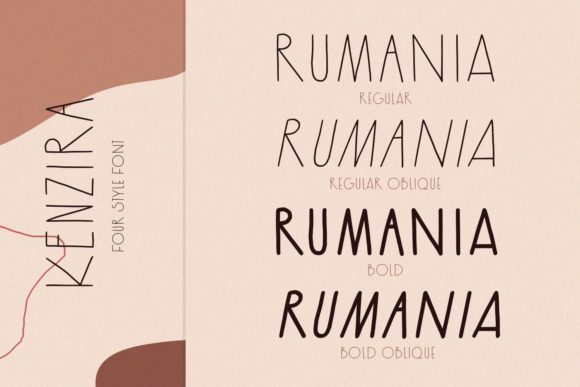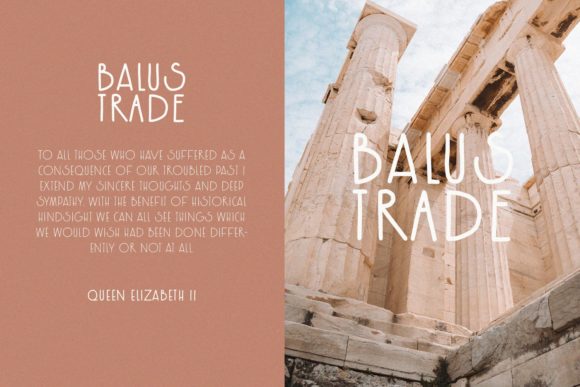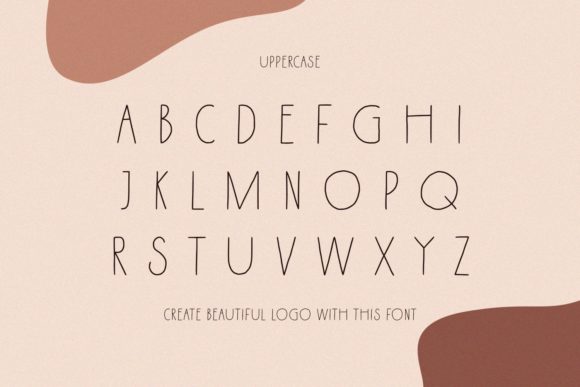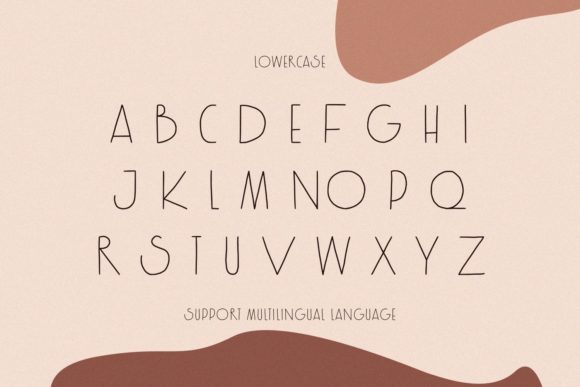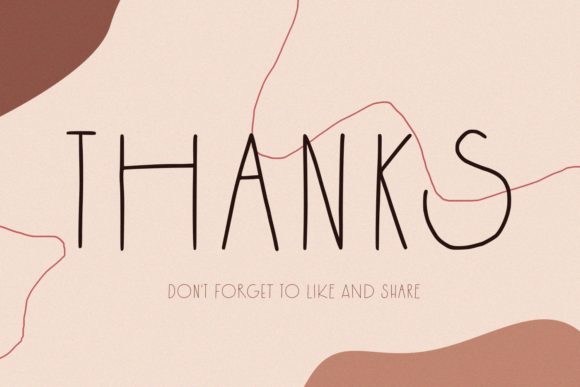
Introduction to Kenzira Font
Have you ever been working on a creative project, pouring your heart and soul into it, only to be held back by the right design resource? I’m sure we’ve all been there. As designers, we know how crucial it is to have the perfect font to elevate our work and make it truly stand out. That’s where Kenzira Font comes in – a stunning sans serif font that’s been carefully handcrafted to become a true favorite.
Kenzira Font is more than just a design tool – it’s a game-changer. With its high-quality design and versatility, it can be used in any context, whether it’s on a busy background or as a standalone headline. And the best part? It’s available for free download, making it an accessible design resource for creatives of all levels.
Key Features of Kenzira Font
- Unique, hand-drawn design perfect for creative projects, with a high level of detail and character.
- Features a clean and elegant design, ideal for use in logos, typography, and other design elements.
- Perfect for use in various design projects, including branding, advertising, and editorial design.
Honest Review: Kenzira Font
One of the standout features of the Kenzira Font is its high quality. The font is crisp and clean, making it perfect for creative projects that require a professional touch. I’ve used it for a variety of projects, from logos to brochures, and it always looks great.
Here are some of the things that work well with the Kenzira Font:
- ✨ Great for creative projects: The Kenzira Font is perfect for designers who want to add a touch of elegance and sophistication to their work.
- ✨ High-quality design: The font is clean and crisp, making it perfect for a variety of design applications.
However, there are a few limitations to the Kenzira Font:
- ⚠️ Limited font styles: While the font is high quality, it’s limited to a few different styles, which may not be suitable for every design project.
Overall, I’m really impressed with the Kenzira Font. It’s a great design resource for designers who want to add a touch of elegance and sophistication to their work. Just be aware of its limitations, and use it accordingly.
Tips for Getting the Most Out of Kenzira Font
To get the most out of Kenzira Font, use it for creative projects where a high-quality, transparent background font is needed. You can also use it for design resources such as logos, icons, and graphics.
Kenzira Font is commonly used for:
- Designing logos and branding materials.
- Creating graphics and icons for digital products.
- Designing presentations and documents.